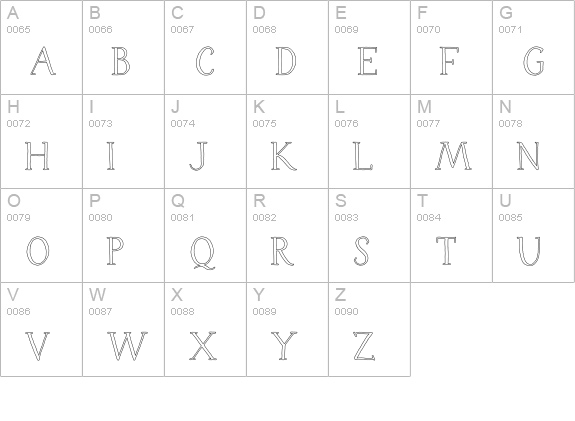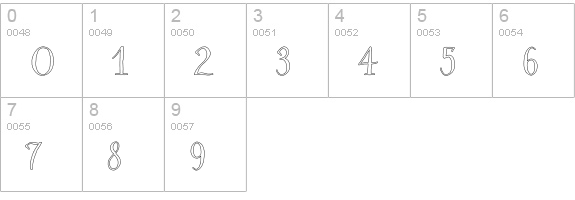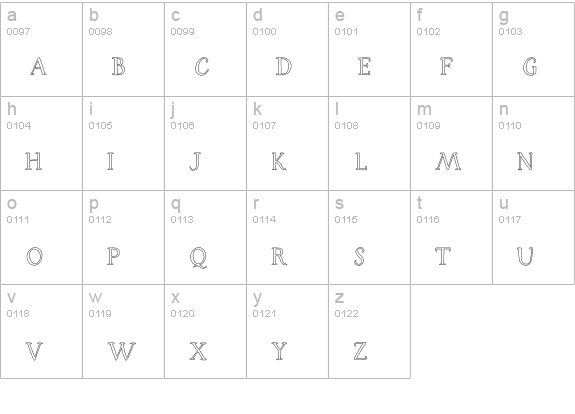
Salt & Spices Pro SC Serif3 Font Details
Introducing Salt & Spices Pro SC Serif3 font, a versatile typeface designed to add a touch of elegance and sophistication to your projects. This font features a unique blend of classic serif elements with a modern twist, making it perfect for a wide range of design applications. With its clean lines and sharp serifs, Salt & Spices Pro SC Serif3 font exudes professionalism and style. Whether you are creating branding materials, editorial designs, or website content, this font will elevate your work to the next level. The best part? Salt & Spices Pro SC Serif3 font is available for free download at FontsMarket.com. Don't miss out on the opportunity to enhance your designs with this exquisite typeface. Download it today and unleash your creativity!